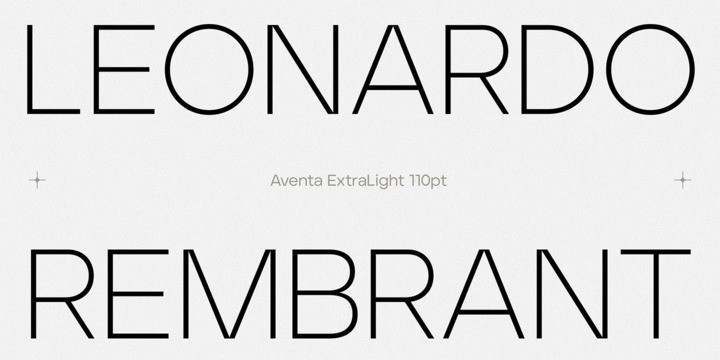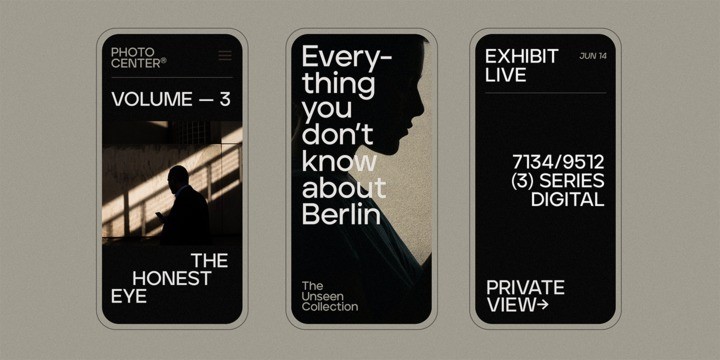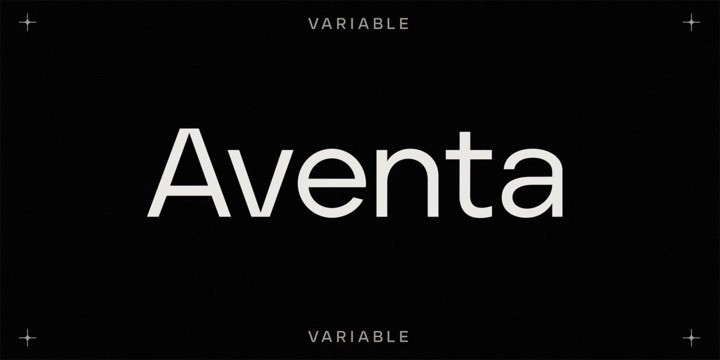
Aventa Font Family
Aventa Sans Serif Font Family
This is a geometric sans serif font. It’s born from strong elementary shapes, with clean circles interwoven with modern cuts and sharp edges. Perfectly suited to logo, branding, signature, wedding cards, packaging design, stationery, website design and more! Introducing Aventa Sans Serif Font Family. It has distinctive voice, retaining the simplicity and elegance of classic geometric typefaces with a fresh, stylish rework. Its bold in personality and fills the space without shouting, appearing refined and confident. It’s high X-height and strong capitals sustain a large amount of visibility across all weights, and have been optically corrected for even better legibility.
It has been designed as a variable font to give lots of options and access to unique type looks; however it also includes nine weights to give just as much access to creativity to those without access to variable supporting software. Aventa’s matching italics sloped at a lively 8º help give it a full range of expressions.
Its distinctive character and many variables make it a versatile, stylish workhorse, great for interfaces and design.